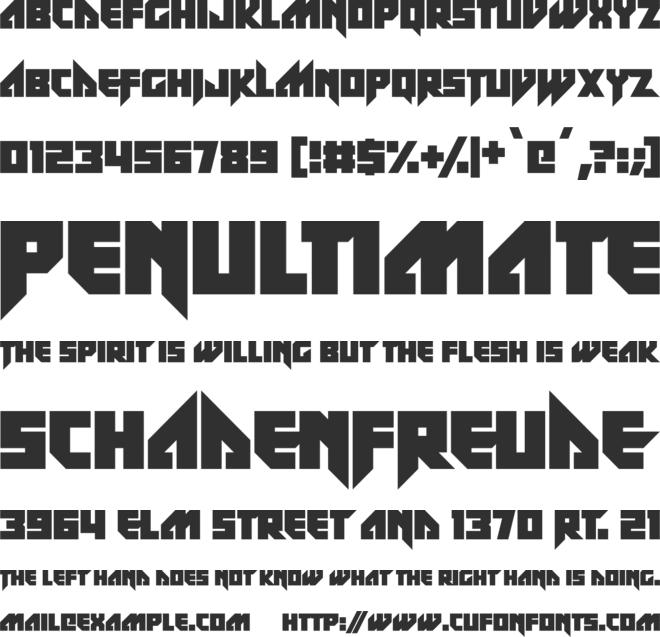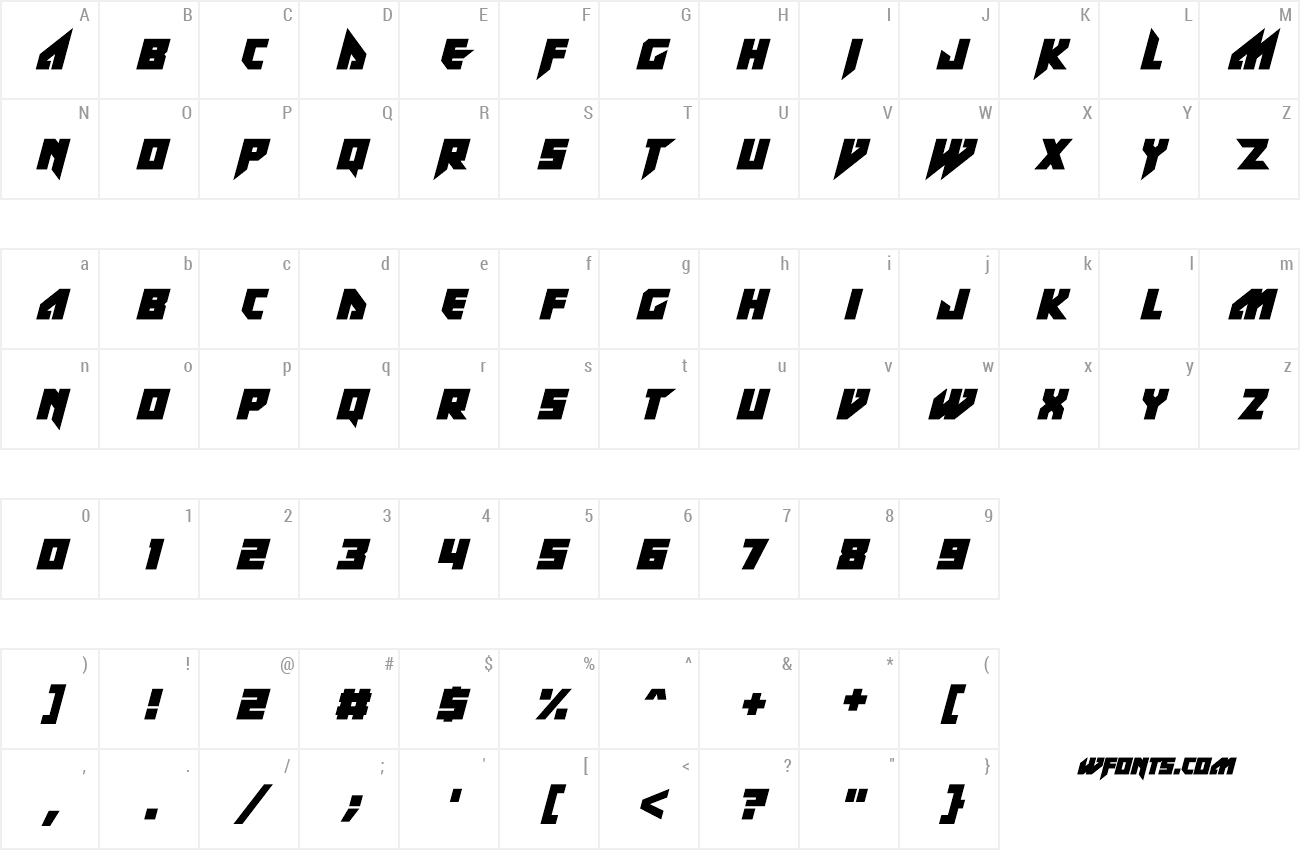
Zef Rave Font
Zef Rave Font - Zef rave is a free font for personal use created by darrell flood. Web download zef rave italic font | 4 styles free font. Web zef rave font download is available free from fontget. Zef rave € by hawtpixel. This font is perfect for both futuristic settings and music event. Web zef rave font | dafont.com.
Web zef rave font | dafont.com. Zef rave is a free font for personal use created by darrell flood. This font is perfect for both futuristic settings and music event. Web download zef rave italic font | 4 styles free font. Zef rave € by hawtpixel. Web zef rave font download is available free from fontget.
Web zef rave font | dafont.com. Web zef rave font download is available free from fontget. Zef rave is a free font for personal use created by darrell flood. Zef rave € by hawtpixel. Web download zef rave italic font | 4 styles free font. This font is perfect for both futuristic settings and music event.
This font is perfect for both futuristic settings and music event. Zef rave is a free font for personal use created by darrell flood. Web zef rave font | dafont.com. Zef rave € by hawtpixel. Web download zef rave italic font | 4 styles free font.
ZeF RAVE Italic font
Web zef rave font download is available free from fontget. Web zef rave font | dafont.com. Web download zef rave italic font | 4 styles free font. Zef rave is a free font for personal use created by darrell flood. Zef rave € by hawtpixel.
Web zef rave font download is available free from fontget. Zef rave is a free font for personal use created by darrell flood. Web download zef rave italic font | 4 styles free font. Zef rave € by hawtpixel. Web zef rave font | dafont.com.
Web zef rave font | dafont.com. Zef rave € by hawtpixel. This font is perfect for both futuristic settings and music event. Web zef rave font download is available free from fontget. Web download zef rave italic font | 4 styles free font.
Web download zef rave italic font | 4 styles free font. This font is perfect for both futuristic settings and music event. Web zef rave font download is available free from fontget. Zef rave is a free font for personal use created by darrell flood. Zef rave € by hawtpixel.
ZeF RAVE Font HAWTPIXEL Darrell Flood FontSpace
Web download zef rave italic font | 4 styles free font. Zef rave € by hawtpixel. Web zef rave font download is available free from fontget. Web zef rave font | dafont.com. This font is perfect for both futuristic settings and music event.
Zef Rave Font
Zef rave is a free font for personal use created by darrell flood. Web zef rave font | dafont.com. This font is perfect for both futuristic settings and music event. Zef rave € by hawtpixel. Web download zef rave italic font | 4 styles free font.
Web zef rave font download is available free from fontget. Zef rave is a free font for personal use created by darrell flood. Web zef rave font | dafont.com. This font is perfect for both futuristic settings and music event. Zef rave € by hawtpixel.
Zef Rave font by Darrell Flood FontRiver
Zef rave is a free font for personal use created by darrell flood. Web zef rave font download is available free from fontget. Web download zef rave italic font | 4 styles free font. This font is perfect for both futuristic settings and music event. Zef rave € by hawtpixel.
Zef Rave font by Darrell Flood FontRiver
Web zef rave font download is available free from fontget. This font is perfect for both futuristic settings and music event. Web zef rave font | dafont.com. Zef rave is a free font for personal use created by darrell flood. Web download zef rave italic font | 4 styles free font.
Zef Rave € By Hawtpixel.
This font is perfect for both futuristic settings and music event. Web zef rave font download is available free from fontget. Zef rave is a free font for personal use created by darrell flood. Web zef rave font | dafont.com.